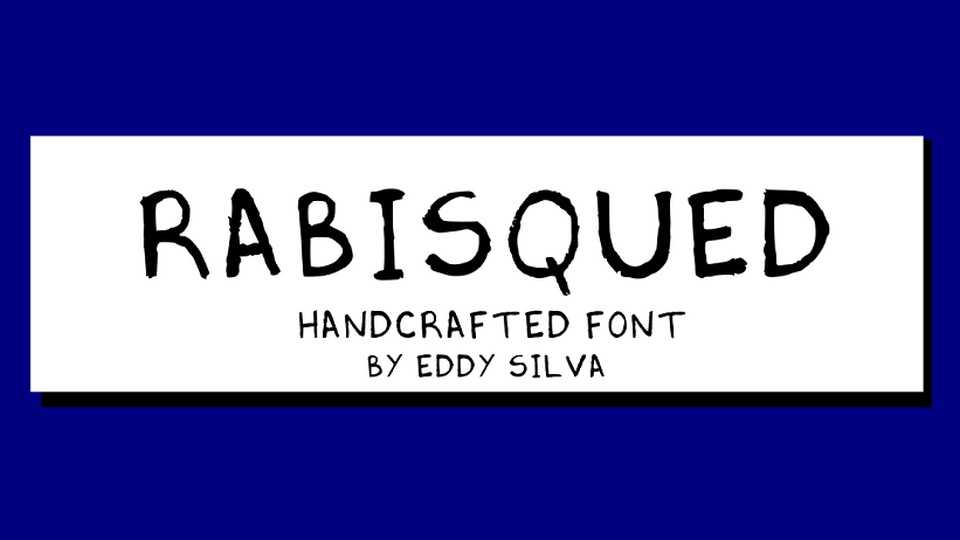
Download Rabisqued font, a simple sketch typeface with a rough and textured look. With its natural hand lettered style, Rabisqued font is perfect for posters, print or any craft projects.